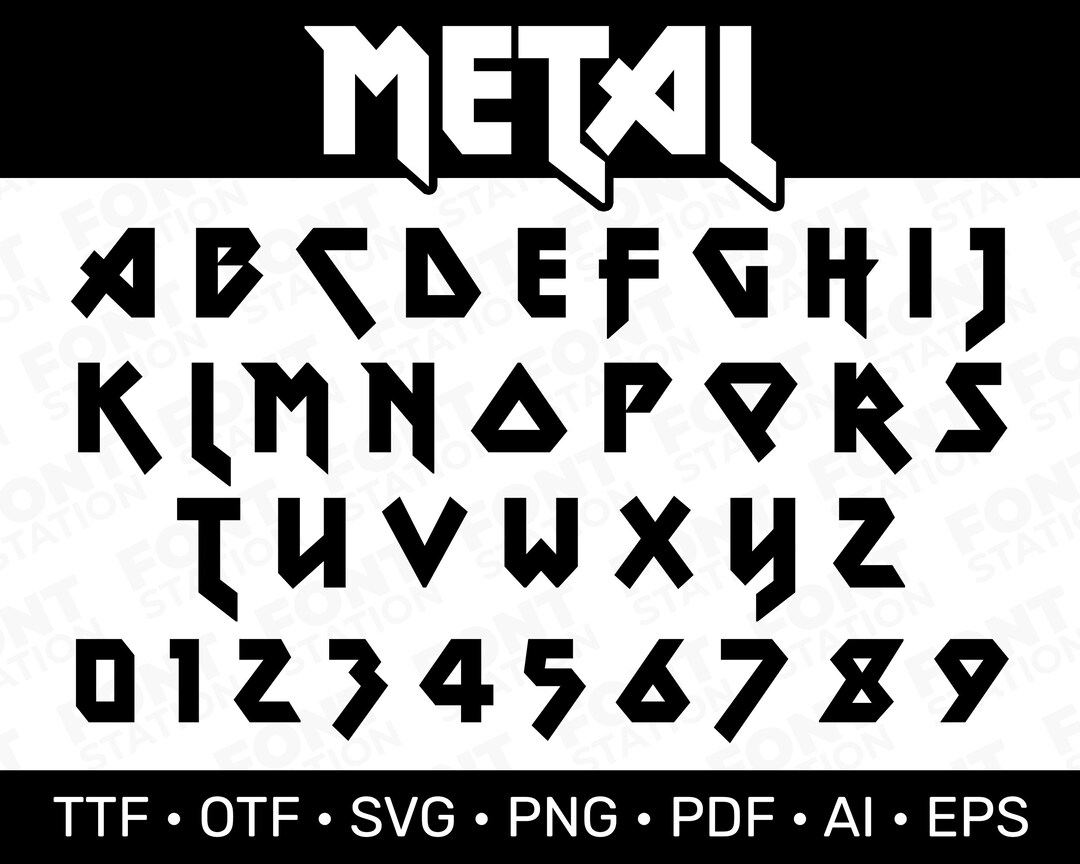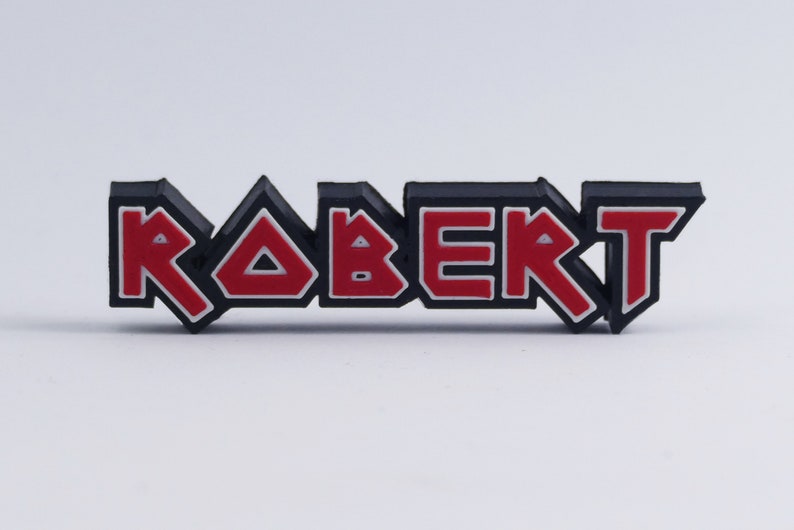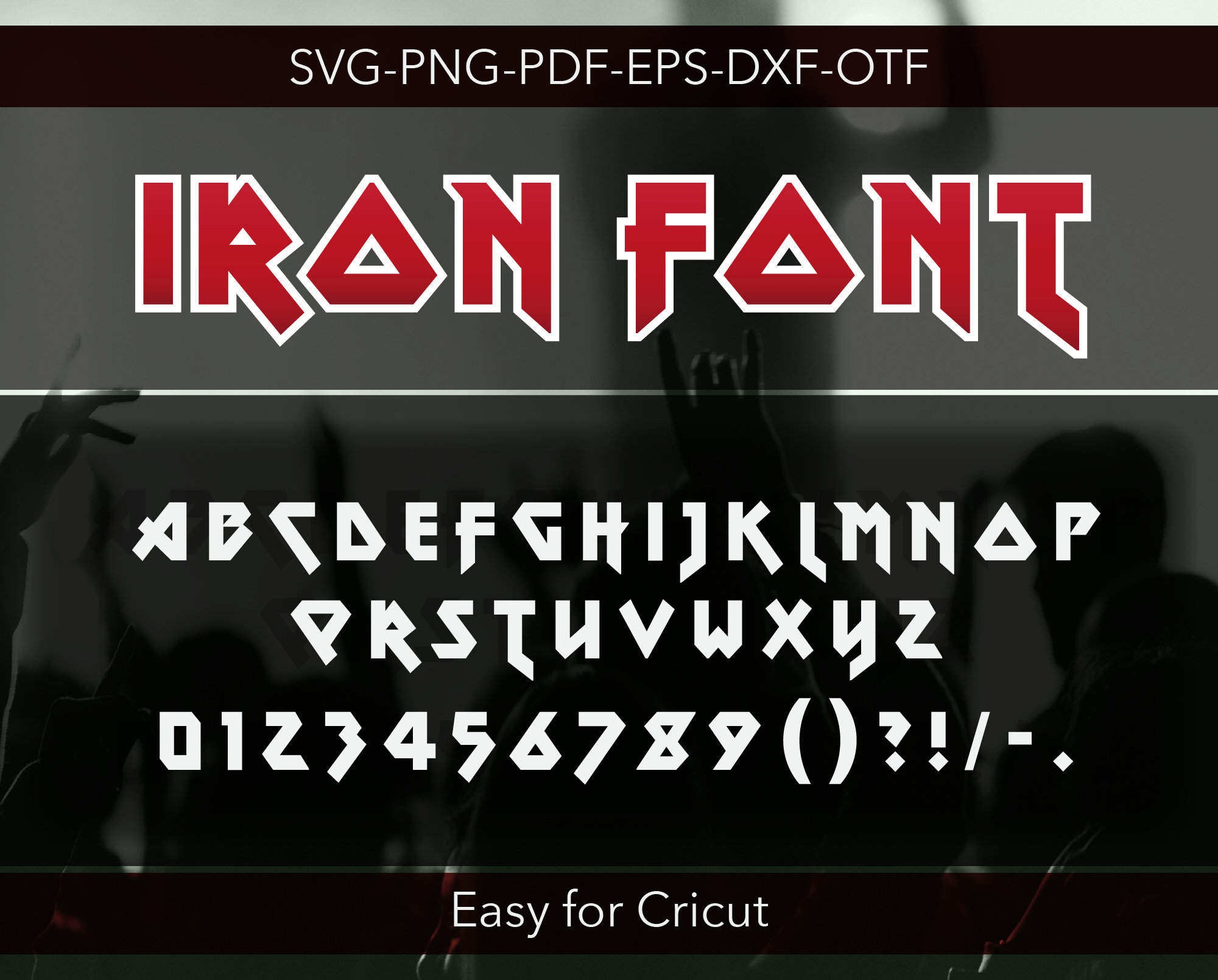
Iron Maiden Font . Learn about the origin and similar fonts of the iron maiden. find and download three free fonts inspired by the heavy metal band iron maiden. iron maiden is a gothic font by timour jgenti with 251 glyphs. These fonts are perfect for creating posters,. create text graphics online with iron maiden font, inspired by the logo of the heavy metal band. It features an outlined display style and. It supports many languages and has opentype. find and download 4 free fonts inspired by the british heavy metal band iron maiden. metal lord is an angular heavy metal typeface created in 1996 by typodermic fonts. Download the font file or view the custom preview of your text in this style. Choose from eddie, key tab metal, iron. Create your own custom designs with the iron maiden font generator tool. It has sharp, angular lines and supports many languages. metal lord is a heavy metal typeface that draws inspiration from the iconic iron maiden logo. iron maiden is a font inspired by the heavy metal band of the same name.
find and download 4 free fonts inspired by the british heavy metal band iron maiden. metal lord is a heavy metal typeface that draws inspiration from the iconic iron maiden logo. iron maiden is a font inspired by the heavy metal band of the same name. It features an outlined display style and. These fonts are perfect for creating posters,. Learn about the origin and similar fonts of the iron maiden. It has sharp, angular lines and supports many languages. find and download three free fonts inspired by the heavy metal band iron maiden. Download the font file or view the custom preview of your text in this style. create text graphics online with iron maiden font, inspired by the logo of the heavy metal band.
Iron Maiden Font find and download three free fonts inspired by the heavy metal band iron maiden. metal lord is a heavy metal typeface that draws inspiration from the iconic iron maiden logo. Download the font file or view the custom preview of your text in this style. metal lord is an angular heavy metal typeface created in 1996 by typodermic fonts. It supports many languages and has opentype. Choose from eddie, key tab metal, iron. find and download 4 free fonts inspired by the british heavy metal band iron maiden. find and download three free fonts inspired by the heavy metal band iron maiden. create text graphics online with iron maiden font, inspired by the logo of the heavy metal band. iron maiden is a font inspired by the heavy metal band of the same name. It features an outlined display style and. It has sharp, angular lines and supports many languages. Create your own custom designs with the iron maiden font generator tool. Learn about the origin and similar fonts of the iron maiden. These fonts are perfect for creating posters,. iron maiden is a gothic font by timour jgenti with 251 glyphs.
Iron Maiden Font Choose from eddie, key tab metal, iron. iron maiden is a gothic font by timour jgenti with 251 glyphs. create text graphics online with iron maiden font, inspired by the logo of the heavy metal band. metal lord is a heavy metal typeface that draws inspiration from the iconic iron maiden logo. It supports many languages and. Iron Maiden Font.
Iron Maiden Font metal lord is a heavy metal typeface that draws inspiration from the iconic iron maiden logo. iron maiden is a gothic font by timour jgenti with 251 glyphs. Learn about the origin and similar fonts of the iron maiden. These fonts are perfect for creating posters,. Create your own custom designs with the iron maiden font generator tool.. Iron Maiden Font.
Iron Maiden Logo LogoDix Iron Maiden Font It has sharp, angular lines and supports many languages. find and download three free fonts inspired by the heavy metal band iron maiden. It supports many languages and has opentype. metal lord is a heavy metal typeface that draws inspiration from the iconic iron maiden logo. create text graphics online with iron maiden font, inspired by the. Iron Maiden Font.
Iron Maiden Font Choose from eddie, key tab metal, iron. metal lord is a heavy metal typeface that draws inspiration from the iconic iron maiden logo. find and download three free fonts inspired by the heavy metal band iron maiden. iron maiden is a gothic font by timour jgenti with 251 glyphs. These fonts are perfect for creating posters,. Download. Iron Maiden Font.
Iron Maiden Font find and download three free fonts inspired by the heavy metal band iron maiden. These fonts are perfect for creating posters,. It has sharp, angular lines and supports many languages. Download the font file or view the custom preview of your text in this style. iron maiden is a gothic font by timour jgenti with 251 glyphs. Learn. Iron Maiden Font.
Iron Maiden font Iron Maiden Font Learn about the origin and similar fonts of the iron maiden. These fonts are perfect for creating posters,. It features an outlined display style and. It supports many languages and has opentype. Create your own custom designs with the iron maiden font generator tool. It has sharp, angular lines and supports many languages. create text graphics online with iron. Iron Maiden Font.
Iron Maiden Font find and download 4 free fonts inspired by the british heavy metal band iron maiden. Download the font file or view the custom preview of your text in this style. iron maiden is a font inspired by the heavy metal band of the same name. metal lord is an angular heavy metal typeface created in 1996 by. Iron Maiden Font.
Iron Maiden Font FREE Download Hyperpix Iron Maiden Font metal lord is an angular heavy metal typeface created in 1996 by typodermic fonts. find and download three free fonts inspired by the heavy metal band iron maiden. create text graphics online with iron maiden font, inspired by the logo of the heavy metal band. iron maiden is a font inspired by the heavy metal band. Iron Maiden Font.
Iron Maiden Svg, Rock Band Svg, Iron Maiden Shirt, Iron Maiden Font iron maiden is a font inspired by the heavy metal band of the same name. It supports many languages and has opentype. These fonts are perfect for creating posters,. metal lord is a heavy metal typeface that draws inspiration from the iconic iron maiden logo. iron maiden is a gothic font by timour jgenti with 251 glyphs.. Iron Maiden Font.
Iron Maiden Font Learn about the origin and similar fonts of the iron maiden. It features an outlined display style and. Download the font file or view the custom preview of your text in this style. create text graphics online with iron maiden font, inspired by the logo of the heavy metal band. Choose from eddie, key tab metal, iron. iron. Iron Maiden Font.
Iron Maiden Font find and download 4 free fonts inspired by the british heavy metal band iron maiden. Choose from eddie, key tab metal, iron. These fonts are perfect for creating posters,. It supports many languages and has opentype. iron maiden is a gothic font by timour jgenti with 251 glyphs. create text graphics online with iron maiden font, inspired. Iron Maiden Font.